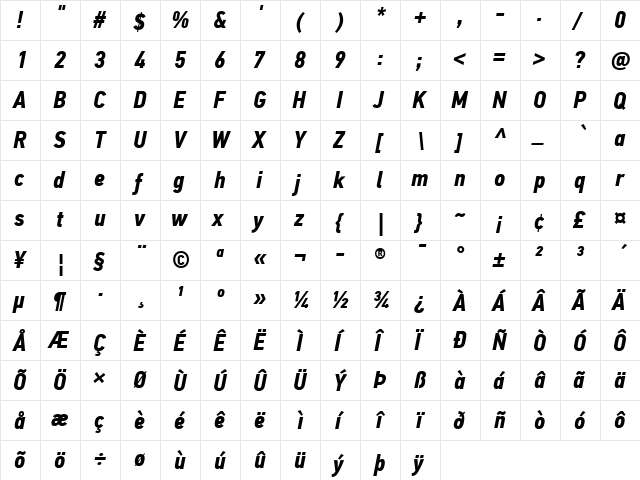
PF Din Text Cond Pro Bold Italic Font Preview
| Foundry | Parachute蠗orldwide |
| Designer | Panos Vassiliou |
Design Context for PF Din Text Cond Pro Typeface
PF Din Text Cond Pro takes a measured approach to typography — its balanced proportions and neutral character make it a reliable workhorse for both digital and print work. Its italic angle brings a sense of urgency and motion to the letterforms. The heavy weight commands attention and anchors typographic hierarchies. Its narrow stance lets it pack a punch even in space-constrained designs.